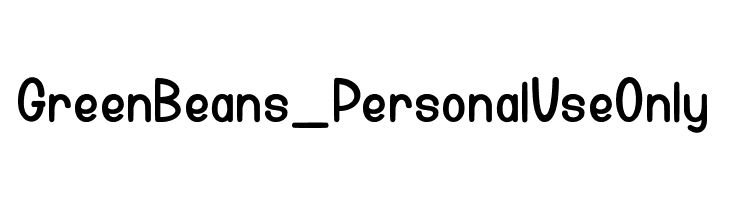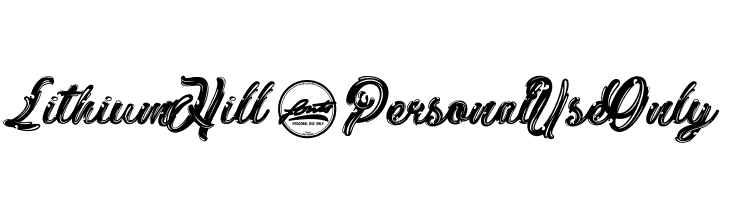
A bold, patterned font with a modern and playful style.
A bold, textured font with a woven, bamboo-like appearance.
A playful decorative font with Christmas-themed illustrations for each character.
A bold, cursive font with elegant, interconnected letters and ornate uppercase designs.
A bold, flowing script font with elegant, cursive letterforms.
A dynamic, brush-stroke font with an energetic and playful style.
An elegant script font with ornate uppercase and flowing lowercase letters.
A playful, rounded font with smooth lines and a friendly appearance.
A playful, hand-drawn font with rounded edges and consistent stroke width.
A playful, handwritten font with smooth, flowing lines and a casual style.